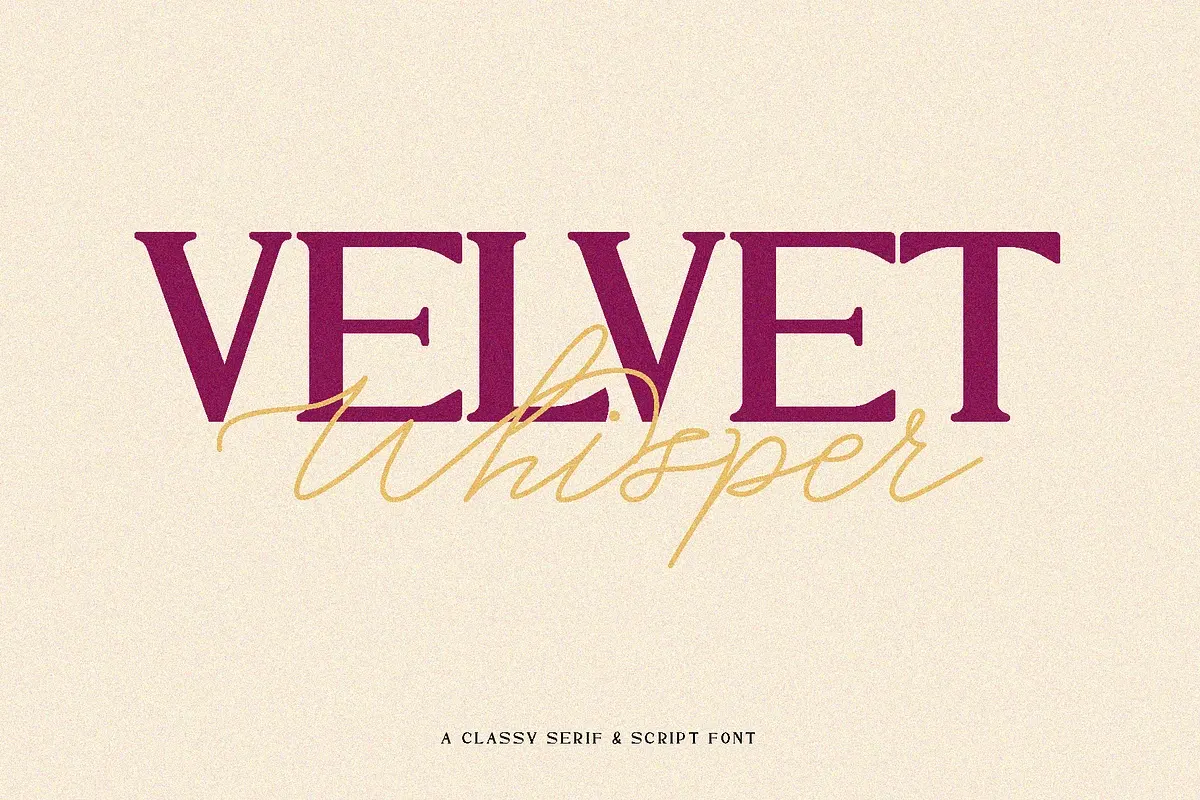
Velvet Whisper Serif Script Font Free Download
Velvet Whisper Serif Script Font Free Download is a beautifully balanced typeface that combines the timeless elegance of a serif with the softness of a flowing script. Perfect for wedding invitations, upscale branding, packaging, and editorial design, this font exudes sophistication and romance.
Velvet Whisper Serif Script Font Free Download features graceful ligatures, stylish alternates, and a refined structure that makes it suitable for both headers and body text. It’s ideal for luxury-oriented projects that need a touch of personality without sacrificing professionalism.